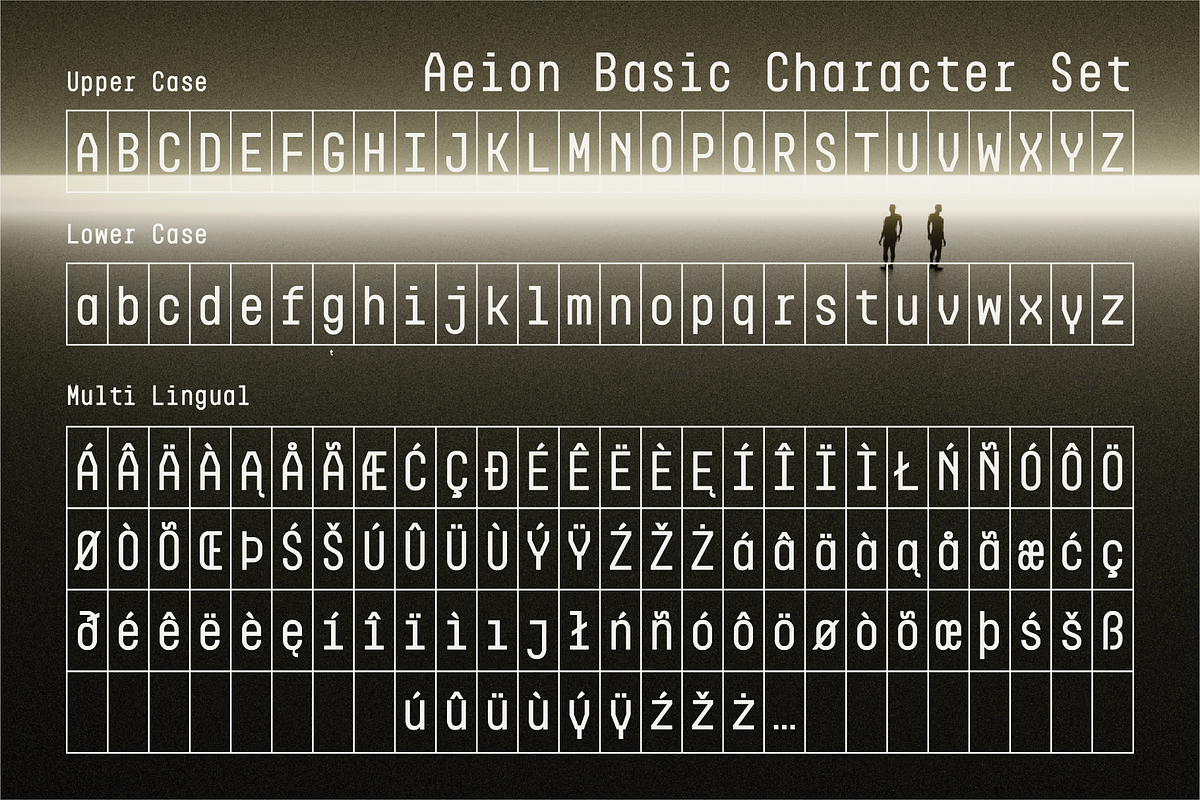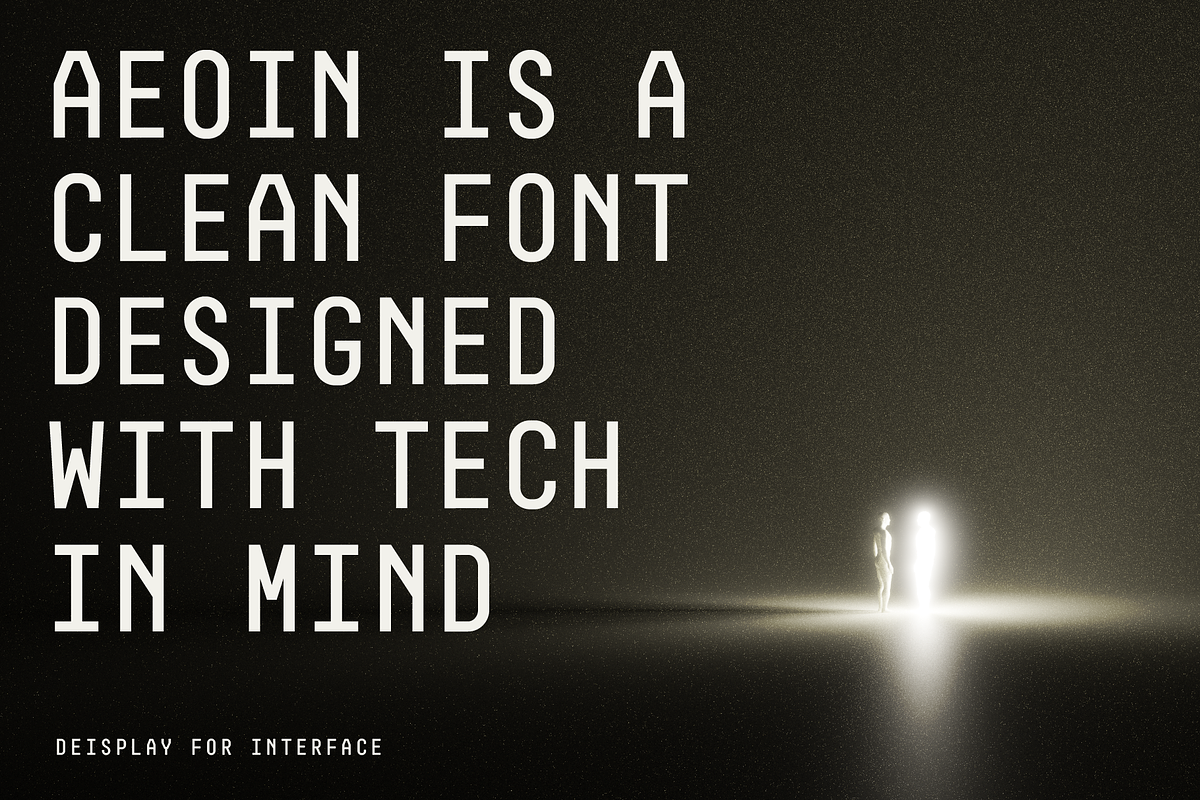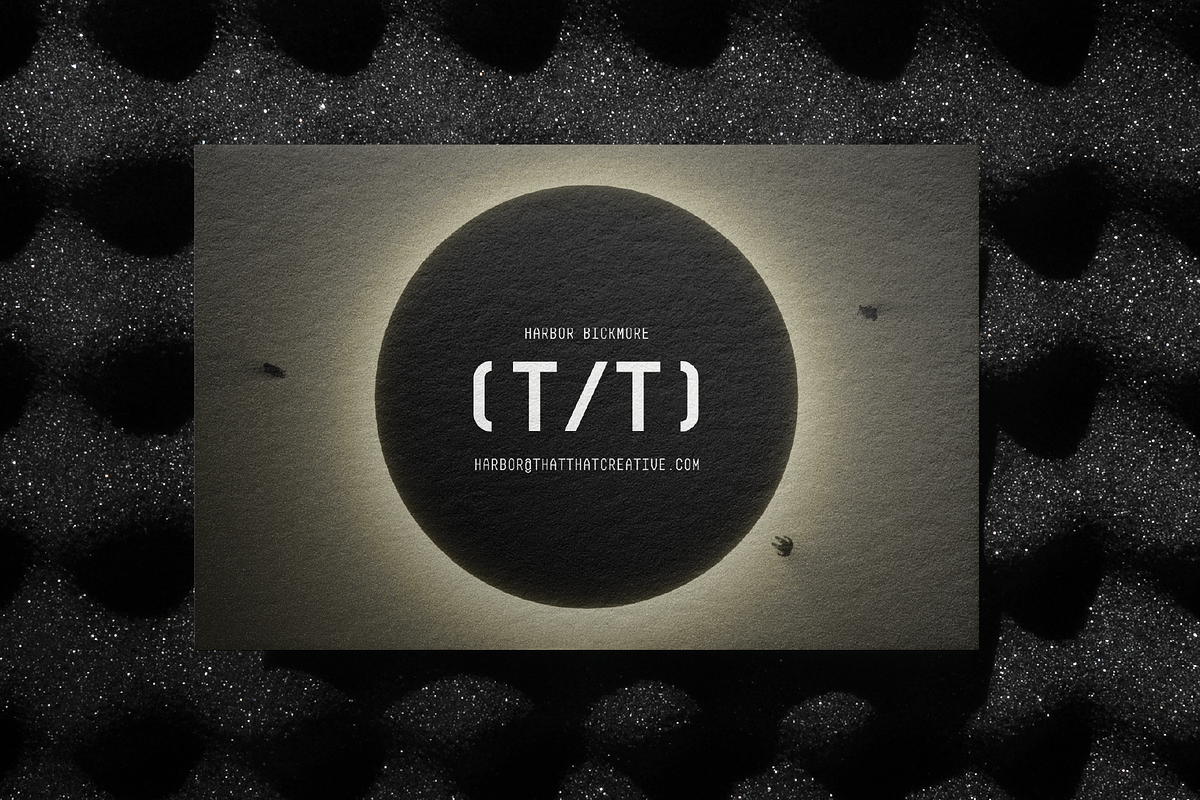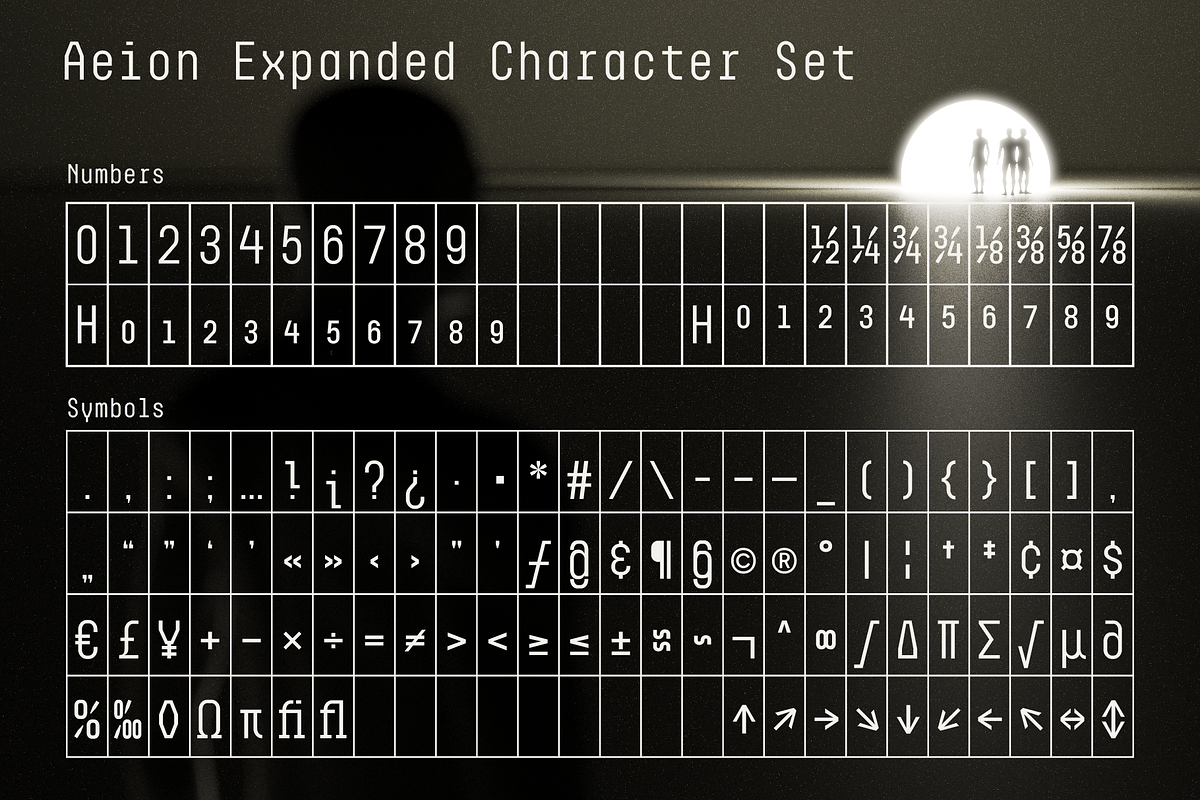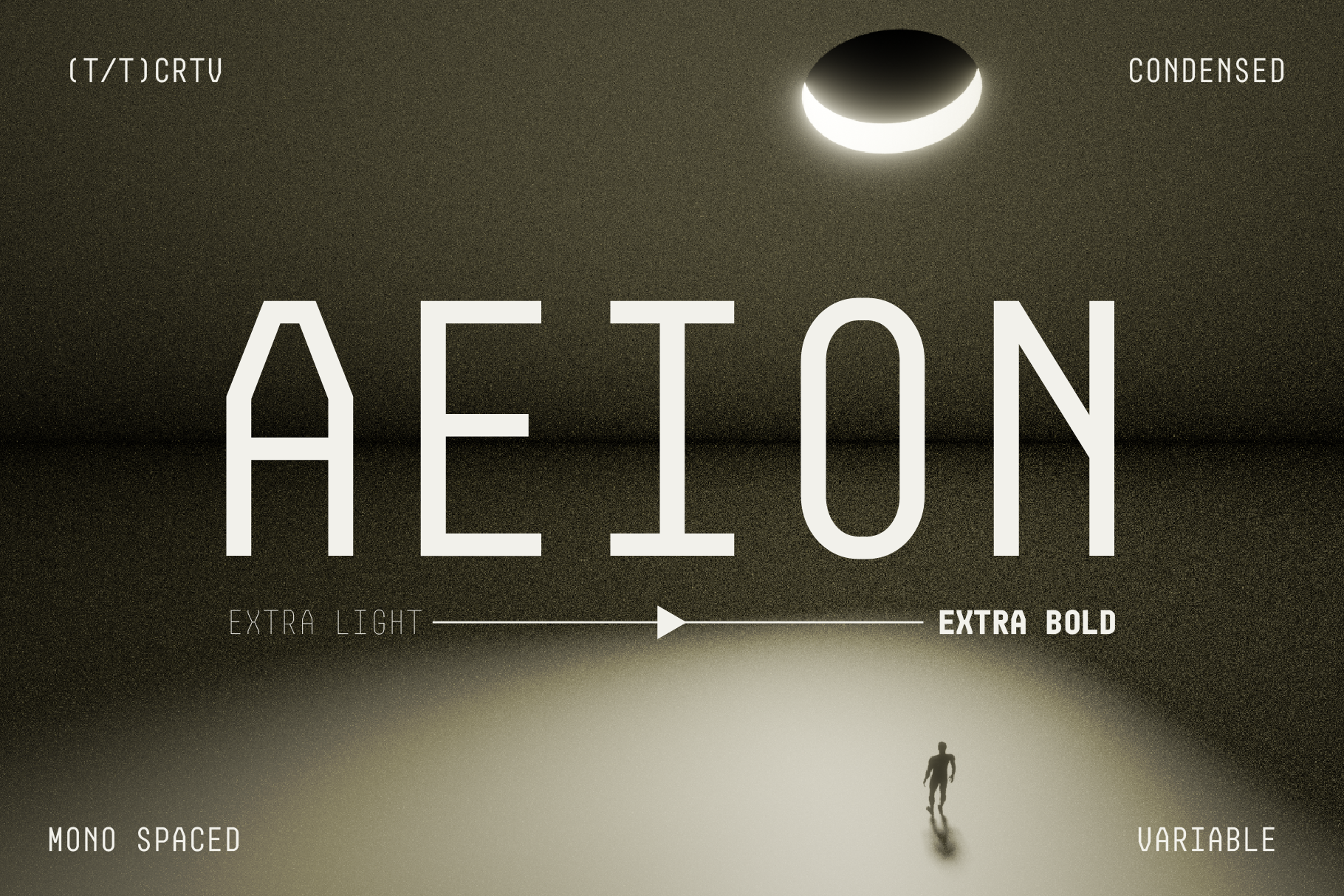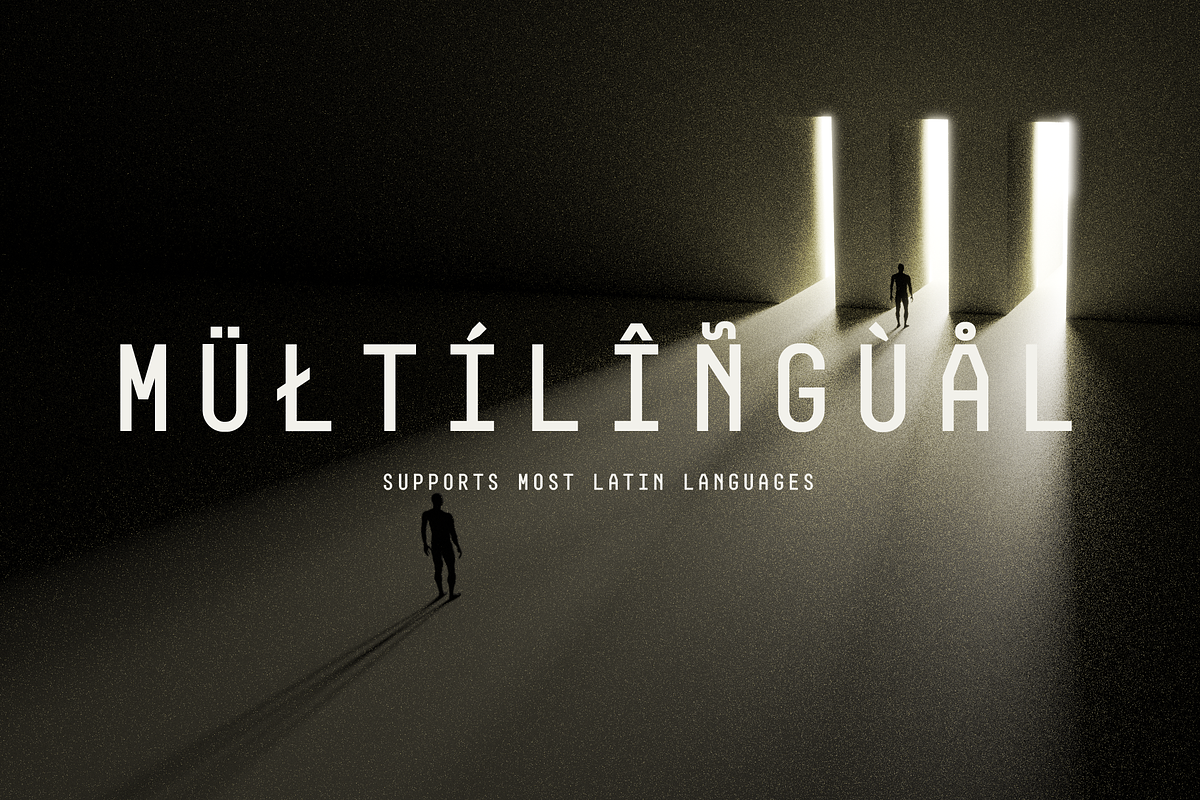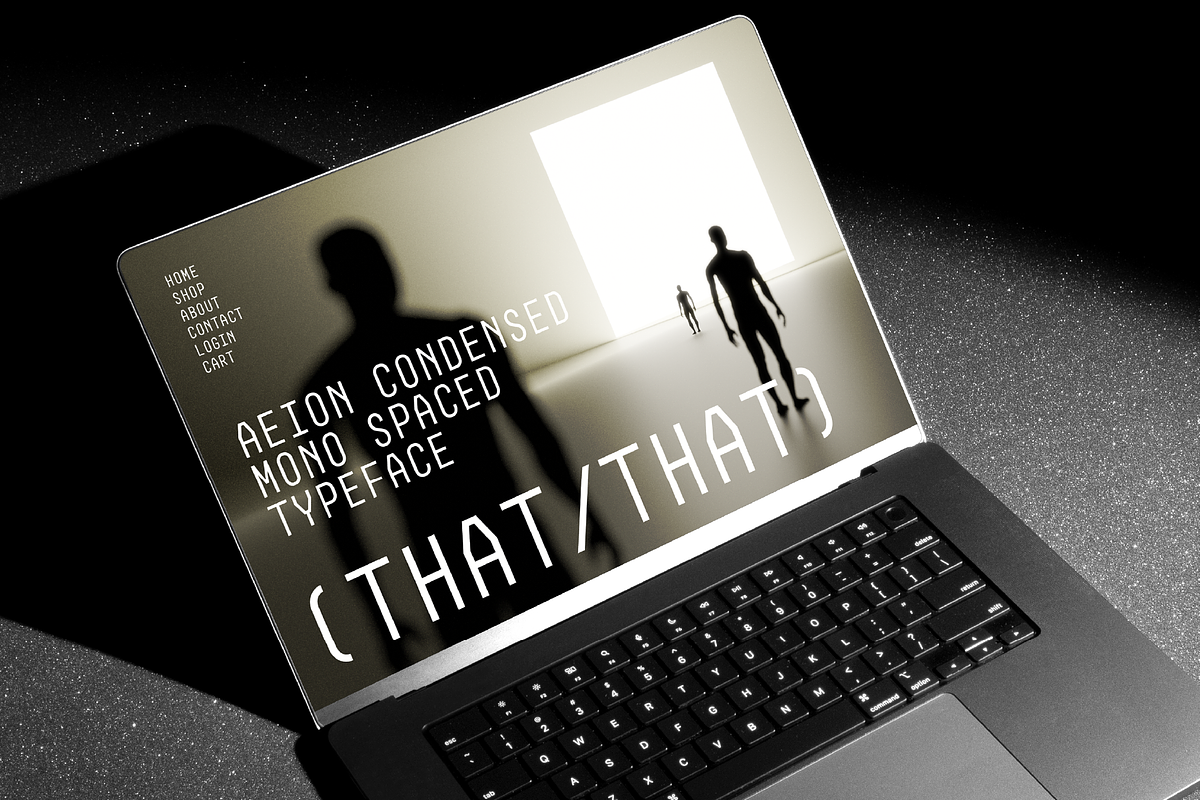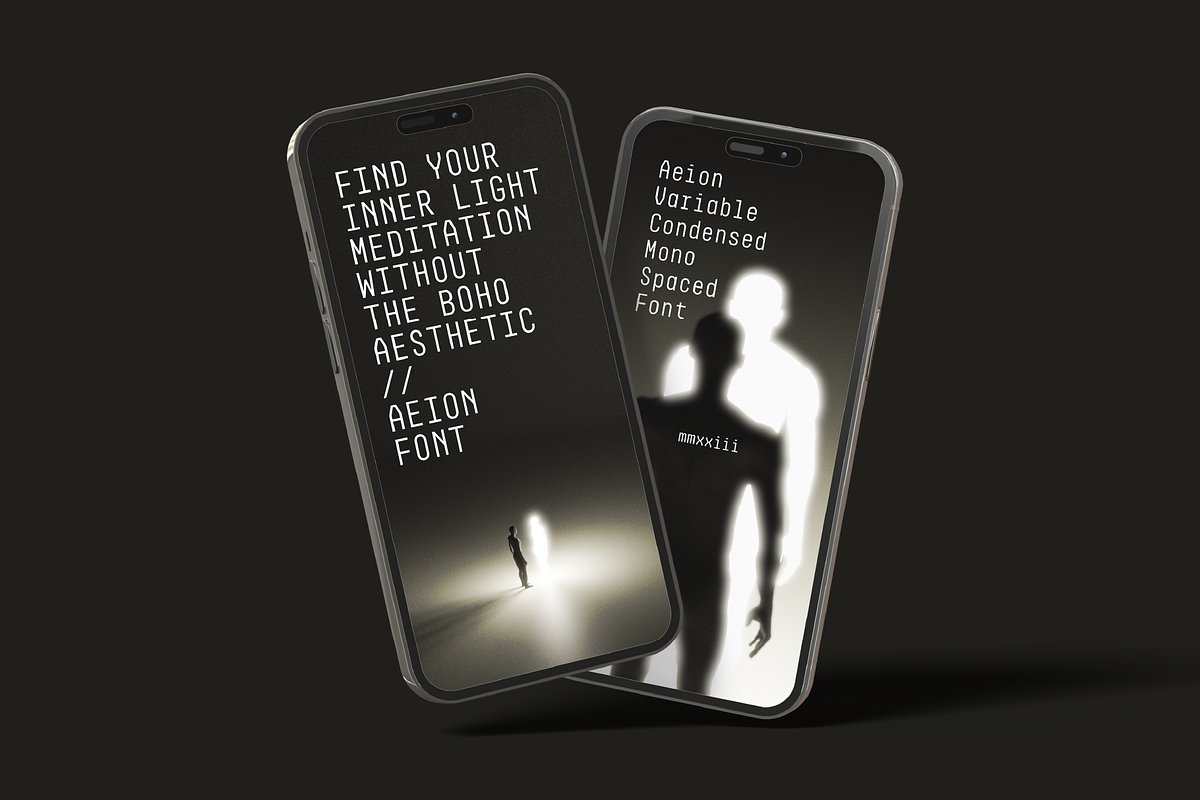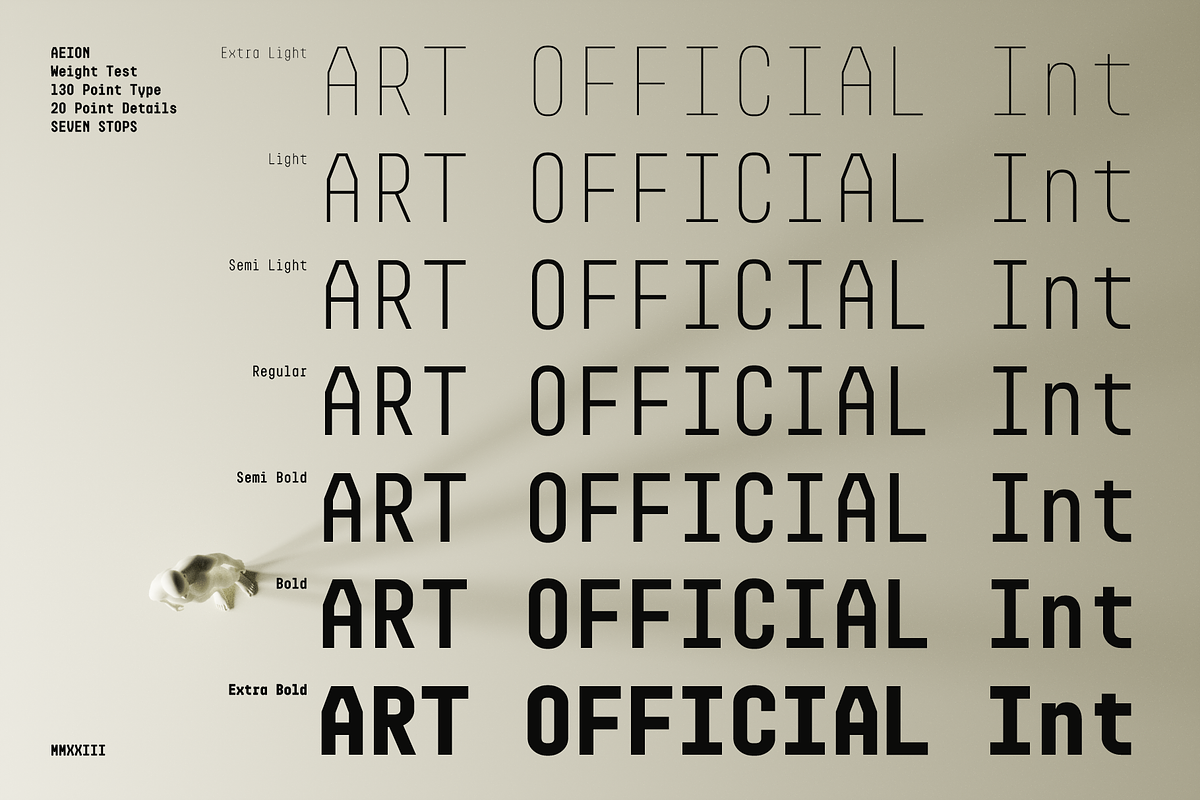
Aeion Modern Tech Font (7 Styles)
Aeion Font is a condensed mono spaced font that comes in 7 weights and a variable font. It designed with tech in mind. This font gives off serious energy, like, it's hard to pull off a joke typed in Aeion. It is modern with a bit of a retro vibe perfect for any contemporary project. If you are into tech Aeion is perfect as a display font in posters, branding, social media, magazines, logos, or whatever.